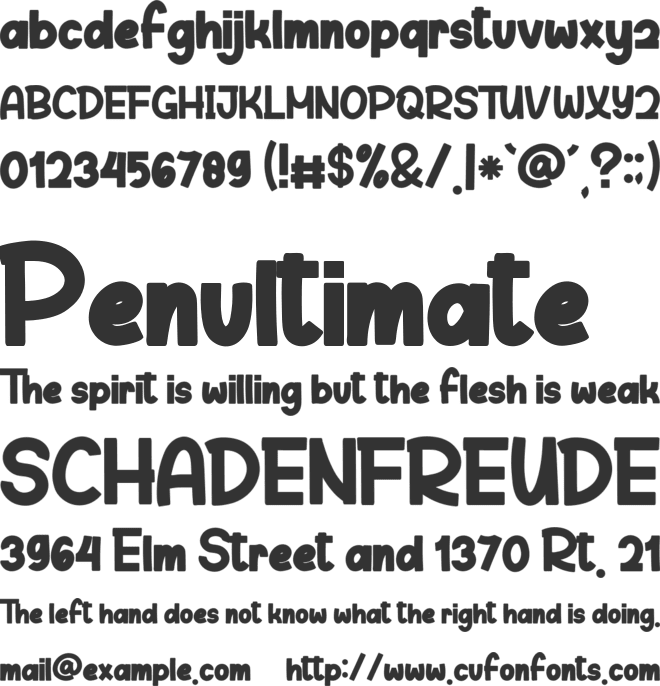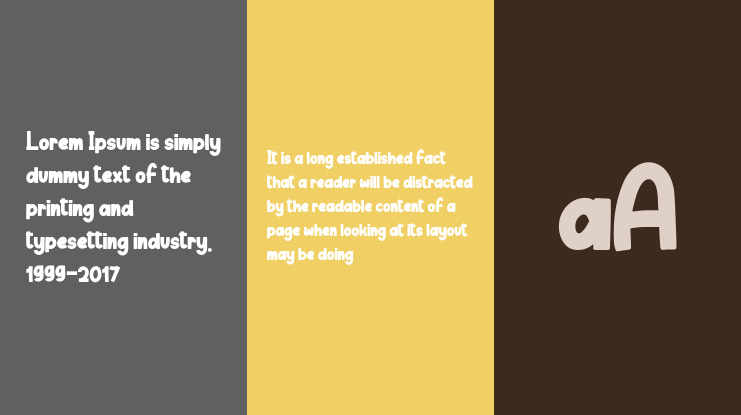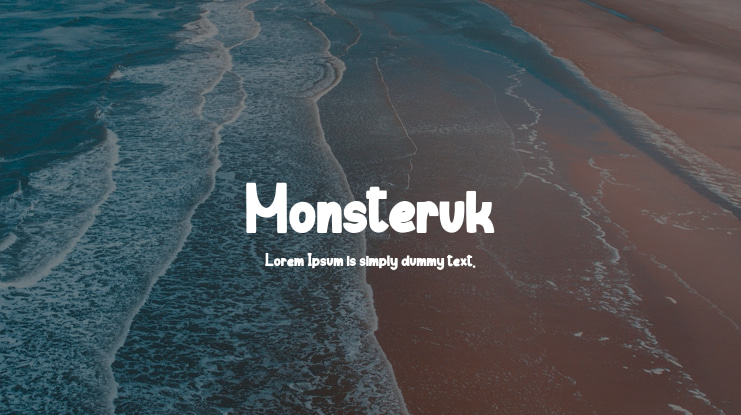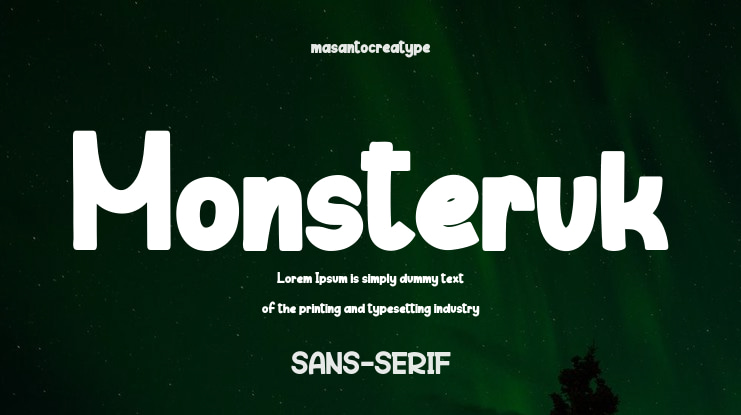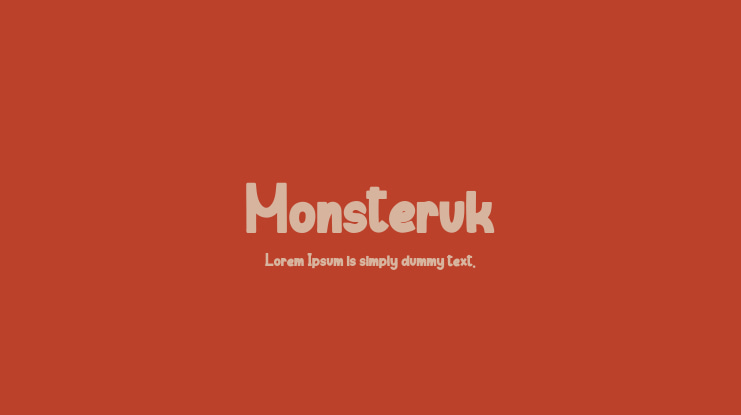
Monsteruk Font
Monsteruk – Display Font
Monsteruk display font features a semi-vintage style, making it perfect for logos, adventure shops, and more.
Monsteruk font preview